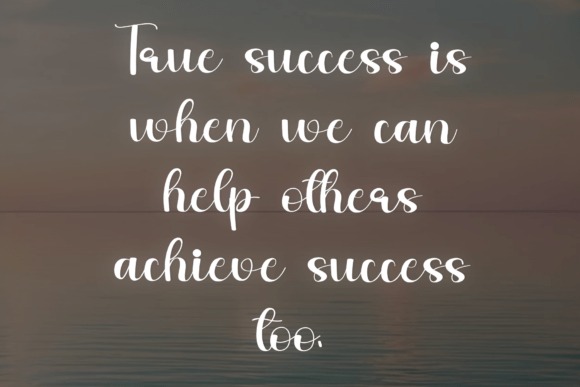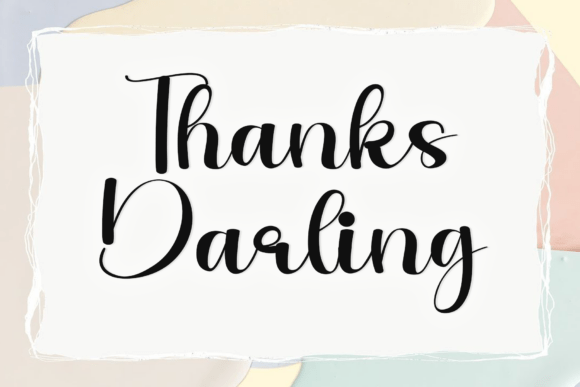
The Elusive Font: A Designer’s Quest for Daddy Highclass
I still remember the design project that led me to Daddy Highclass like it was yesterday. I was working on a branding campaign for an outdoor gear company, and I needed a font that would evoke a sense of adventure, sophistication, and elegance. I scoured the internet, tried out countless fonts, but none seemed to fit the bill. That was until I stumbled upon Daddy Highclass – a unique and professional entry into the modern handwritten collection.
An Honest Review: What I Love and What I Don’t
- ✅ Crisp Elegance: Daddy Highclass features tall, thin strokes with a subtle, airy slant, giving it a refined aesthetic that’s perfect for travel photography, branding for outdoor gear, and sophisticated web design.
- ✅ Clean and Approachable: Its clean and approachable style makes it easy to read and understand, even at small font sizes.
- ✅ Versatile: Daddy Highclass works well in both digital and print formats, making it a great addition to any designer’s font library.
The Not-So-Good Stuff 🤔
- ⚠️ Limited Use in Body Text: While Daddy Highclass is perfect for headings and titles, it may not be the best choice for body text due to its thin strokes and elegant feel.
- ⚠️ Glyph Limitations: Some users have reported that the font lacks certain glyphs or special characters, which may limit its use in certain design projects.
The Story Behind Daddy Highclass: Designer Inspiration
Daddy Highclass was designed with the goal of creating a unique and professional font that would evoke a sense of clarity and crisp elegance. The designer drew inspiration from the natural world, aiming to create a font that felt fresh and airy. The result is a font that’s perfect for use in travel photography, branding for outdoor gear, and sophisticated web design.
| Font Name | Daddy Highclass Font |
| Author | Preketek texs |
| What is Daddy Highclass? | Daddy Highclass is a modern handwritten font designed to evoke a sense of clarity and crisp elegance. |
| Is Daddy Highclass suitable for body text? | While Daddy Highclass is perfect for headings and titles, it may not be the best choice for body text due to its thin strokes and elegant feel. |
| Does Daddy Highclass support OpenType features? | Yes, Daddy Highclass supports OpenType features, including glyphs and stylistic alternates. |